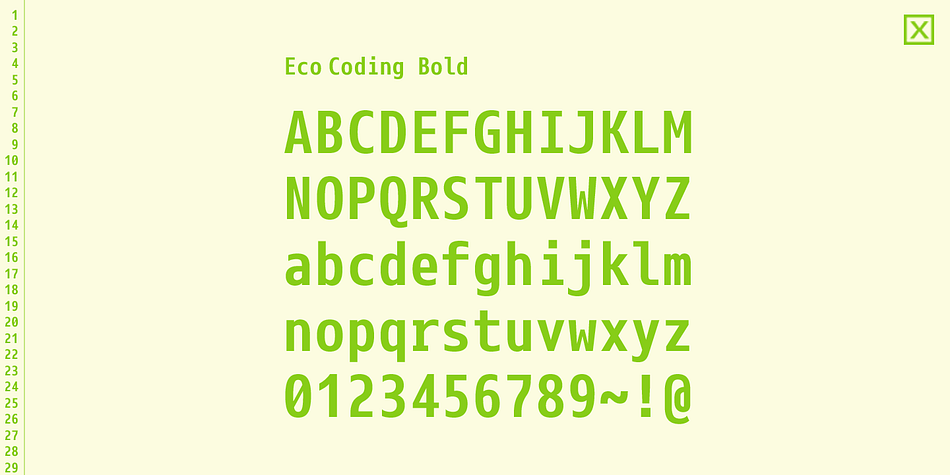
Eco Coding
Eco Coding is a sans serif font family. This typeface has eight styles and was published by S-Core.
Eco Coding is a sans-serif monospaced font, especially designed for programmers.
This font is optimized for programming(coding) environment.
Eco Coding
The appearance of Eco Coding is neutral, but it has distinctive shapes enhance legibility and readability on screen.
Eco Coding is a sans-serif monospaced font, especially designed for programmers. This font is optimized for programming(coding) environment. Eco Coding’s neutral and open shapes will make your eyes comfortable to read any source codes and text on screen. The appearance of Eco Coding is neutral, but it has distinctive shapes enhance legibility and readability on screen.